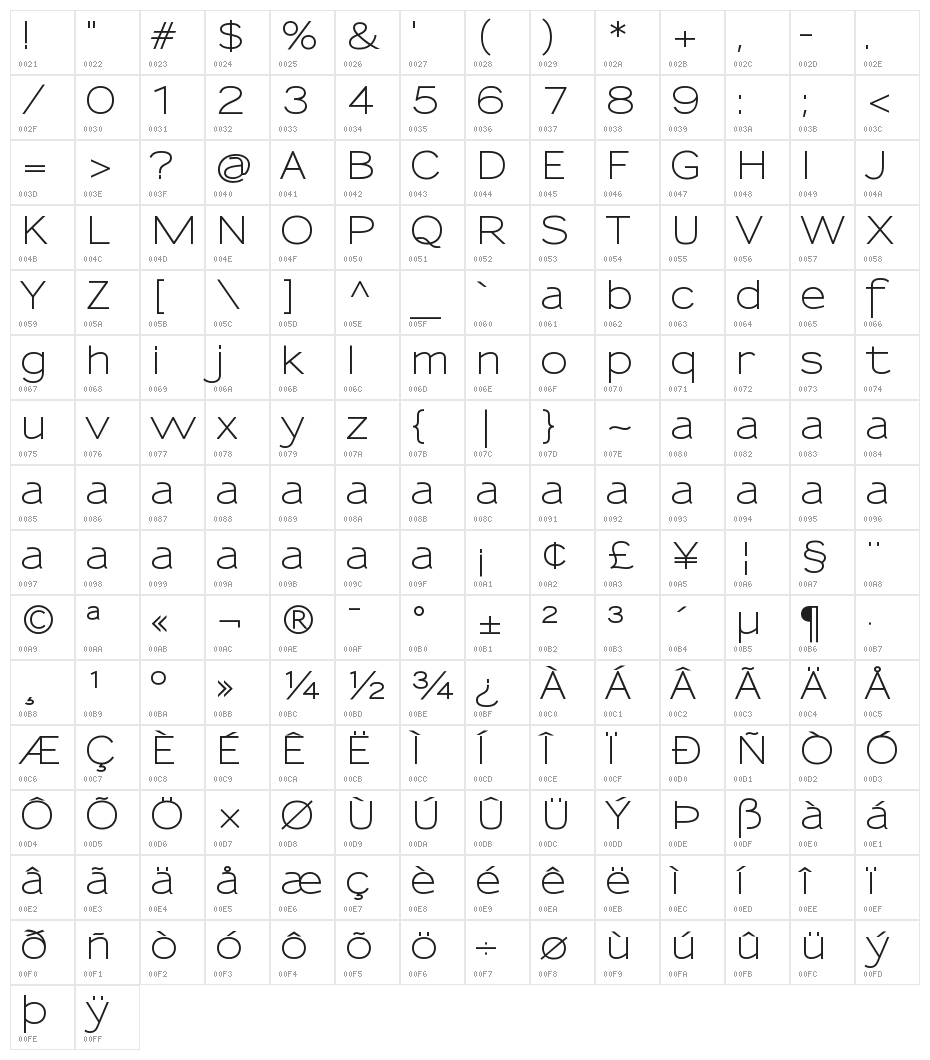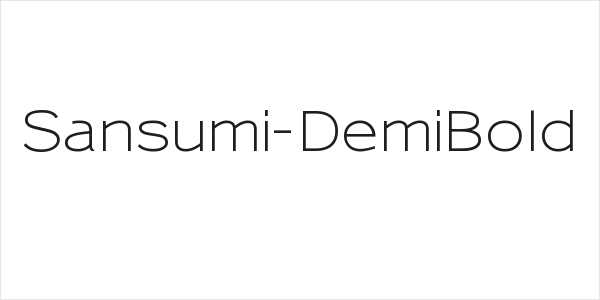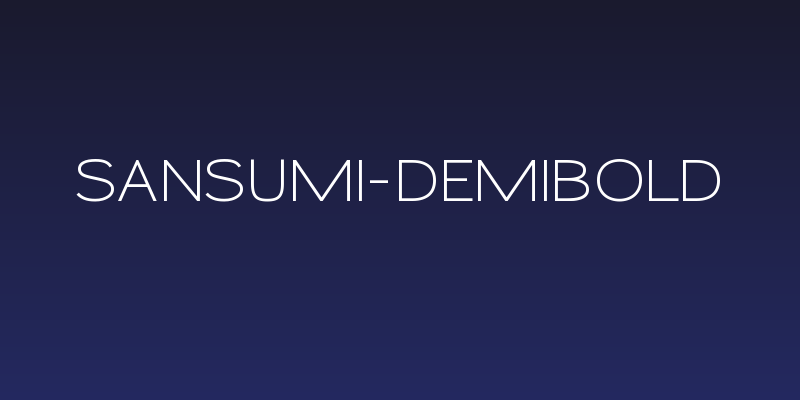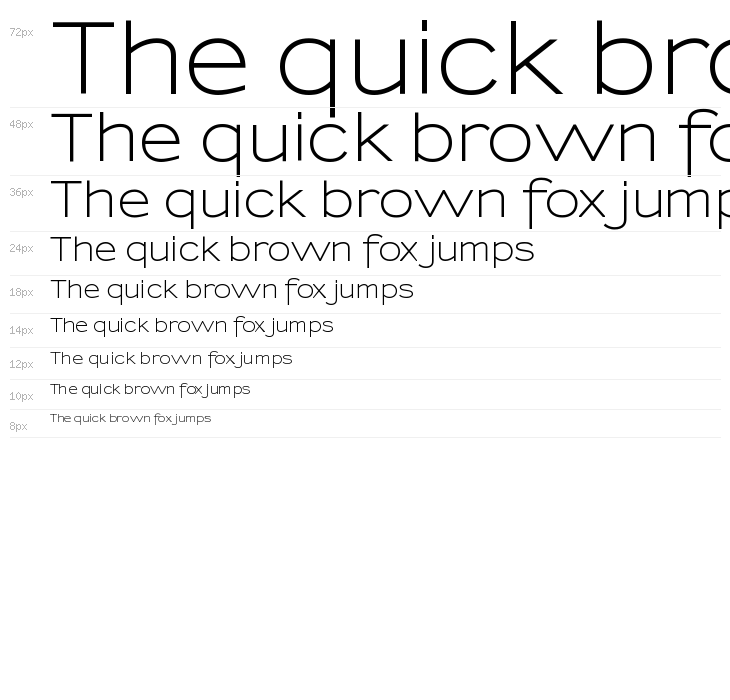
Sansumi-DemiBold Font
Sansumi-DemiBold Description
This font features a clean and modern sans-serif design with a geometric structure. The characters are well-proportioned, offering a balanced and harmonious appearance. The uppercase letters are bold and assertive, while the lowercase letters maintain a friendly and approachable feel. The numerals are clear and easy to read, making them suitable for various applications. Special characters are included, providing versatility for different uses. The overall design is sleek and contemporary, making it ideal for digital and print media.